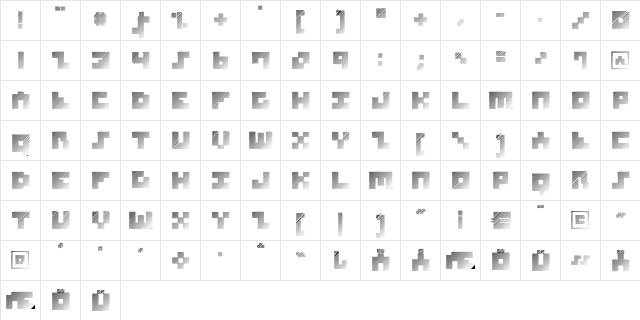
MKSquaresHatch-Heavy Regular
Design Context for MKSquaresHatch-Heavy Typeface
MKSquaresHatch-Heavy is a composed and adaptable typeface that performs quietly and consistently across a wide range of design contexts.